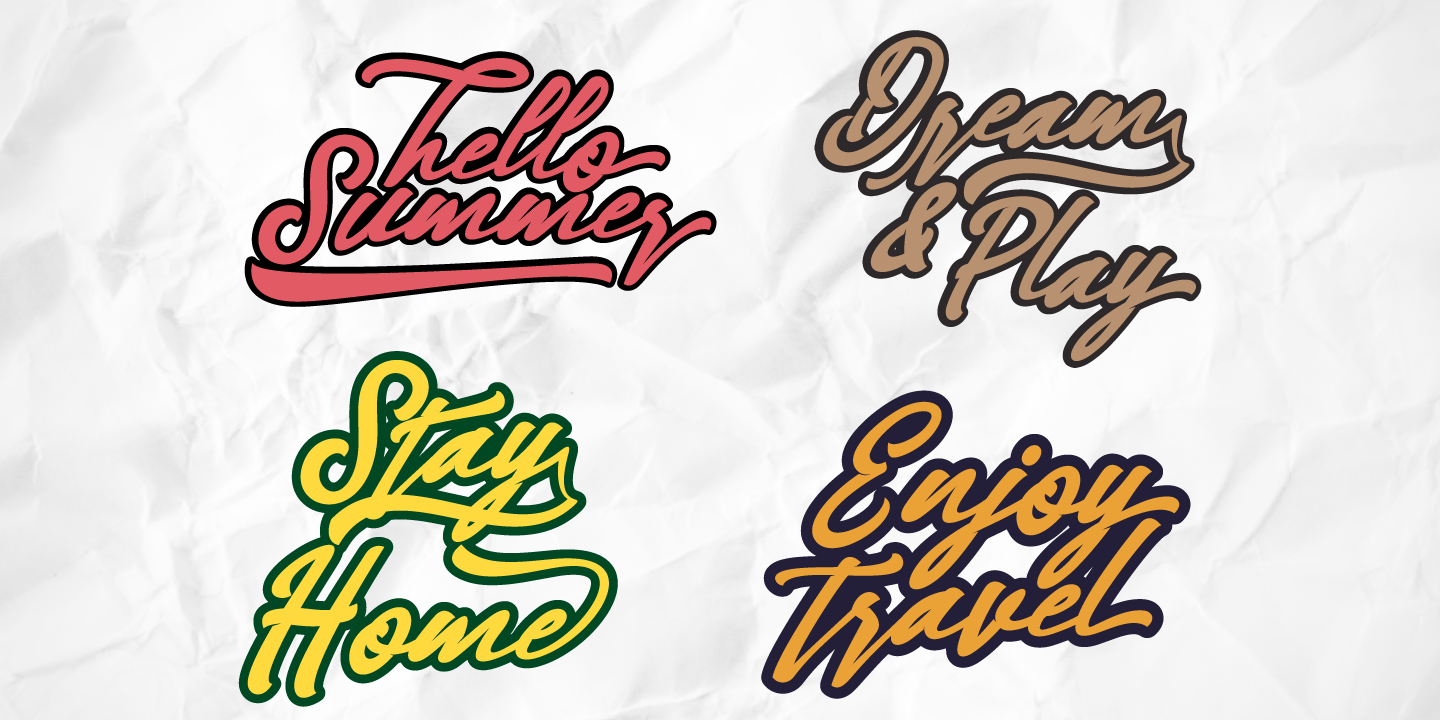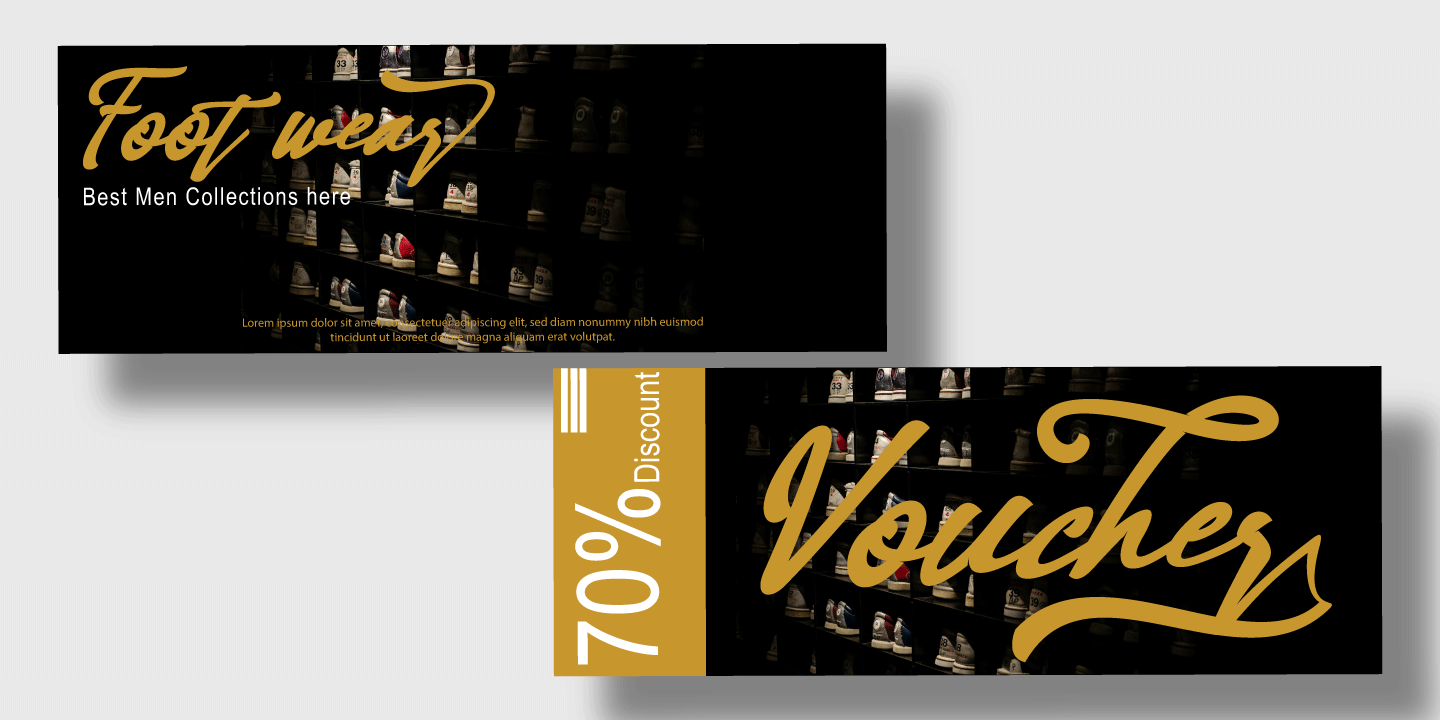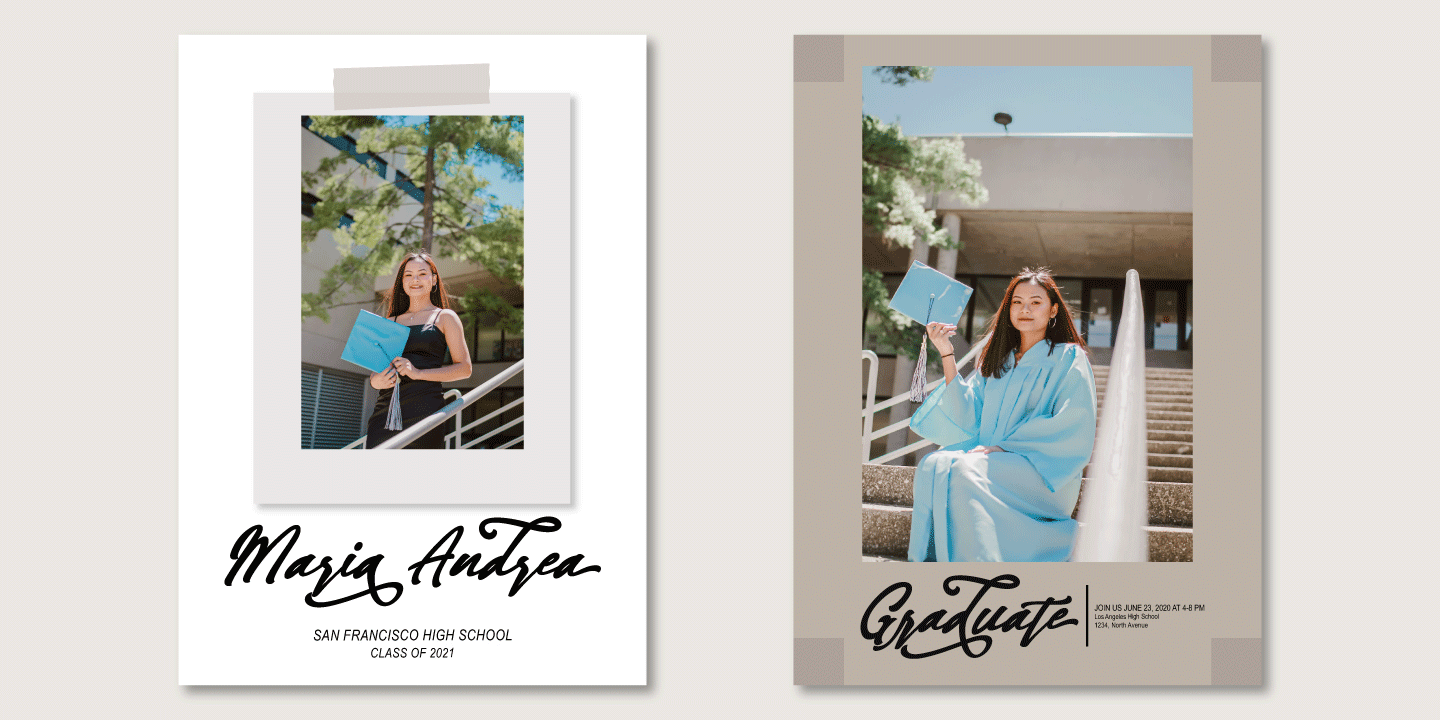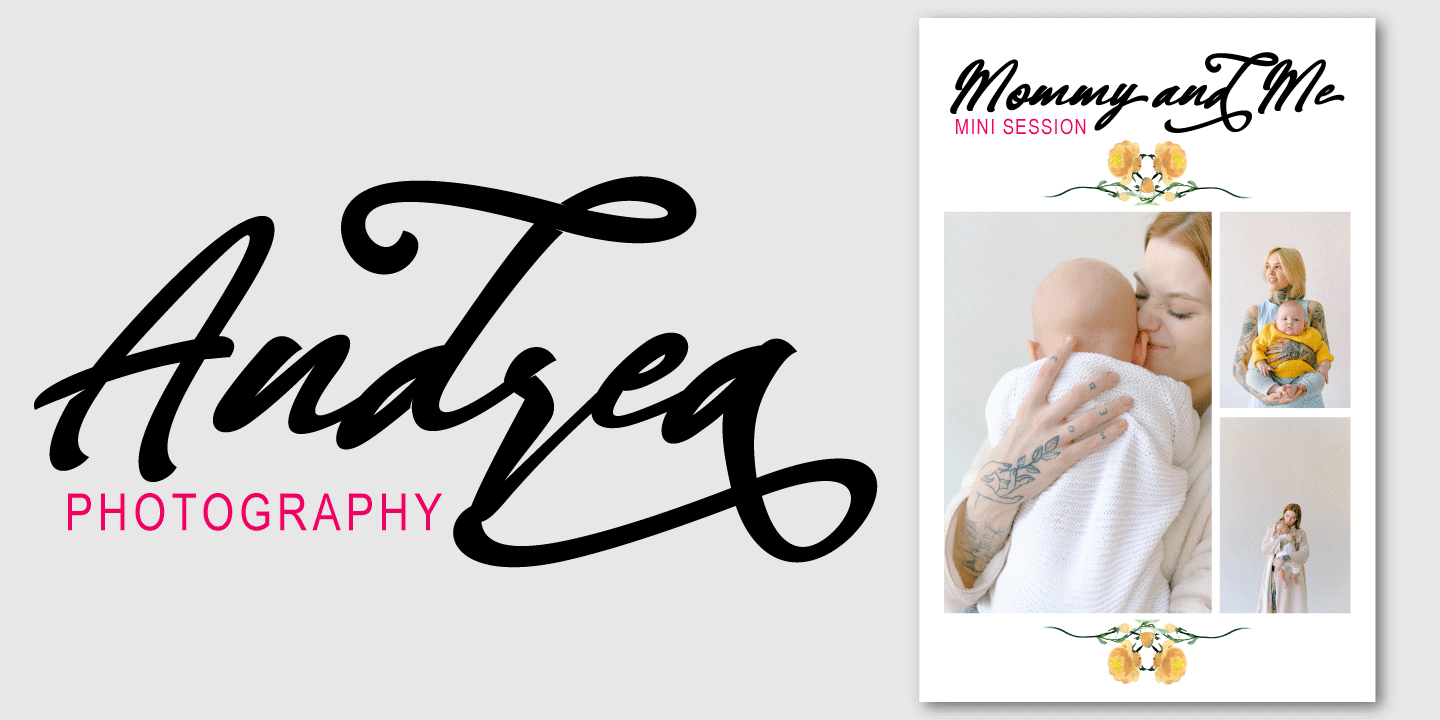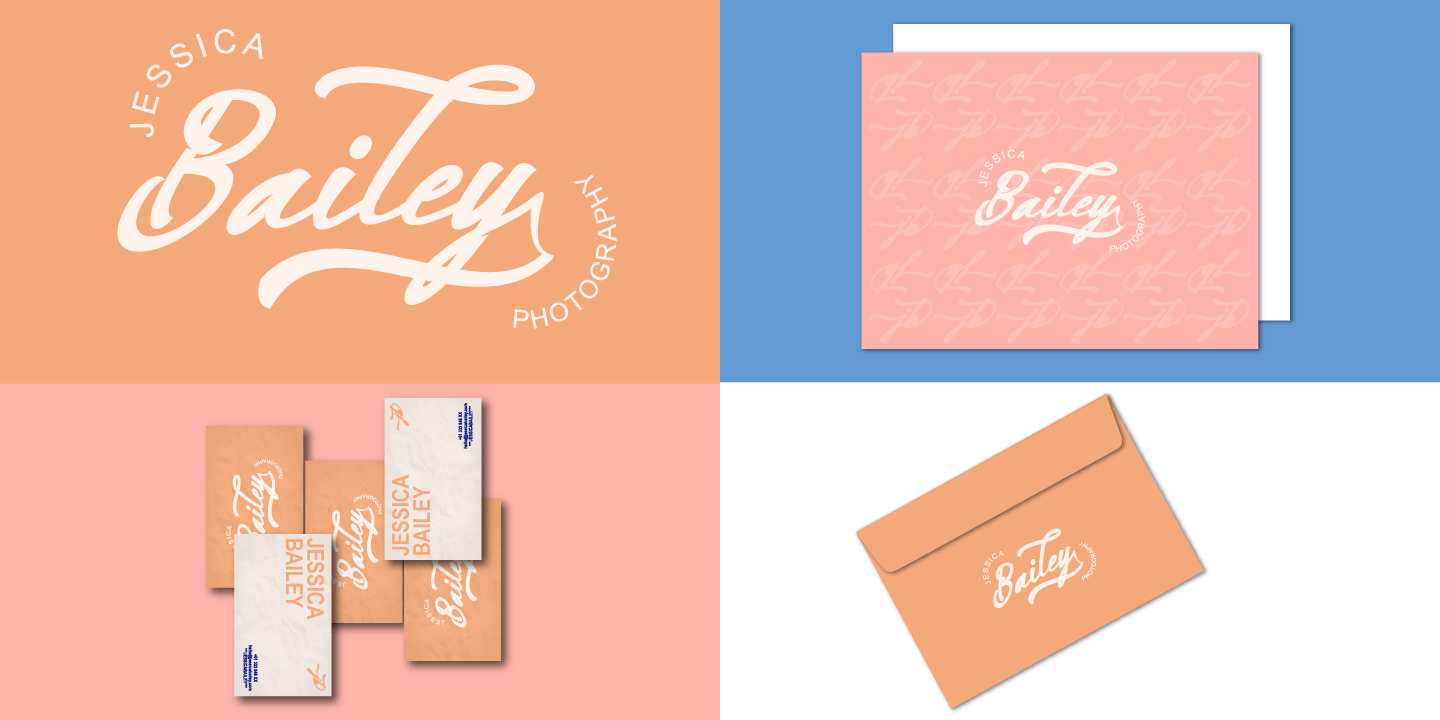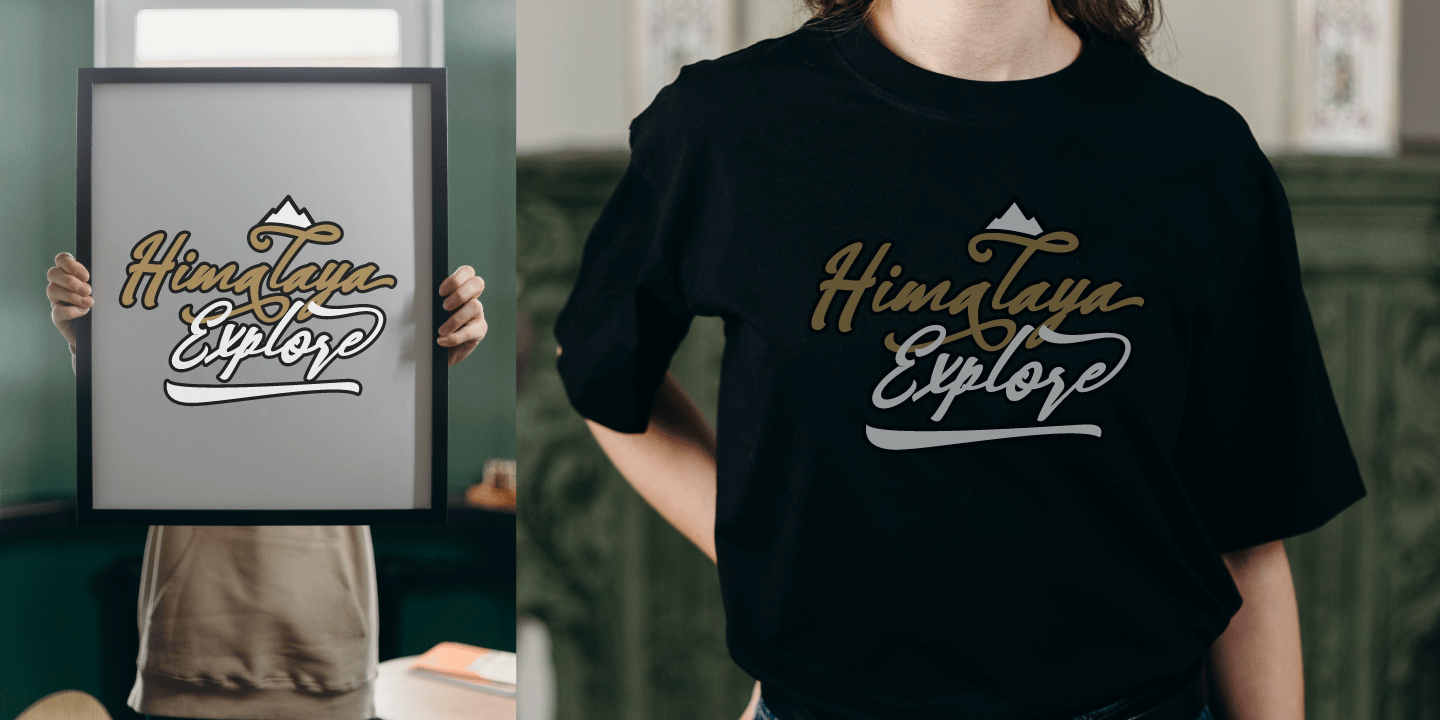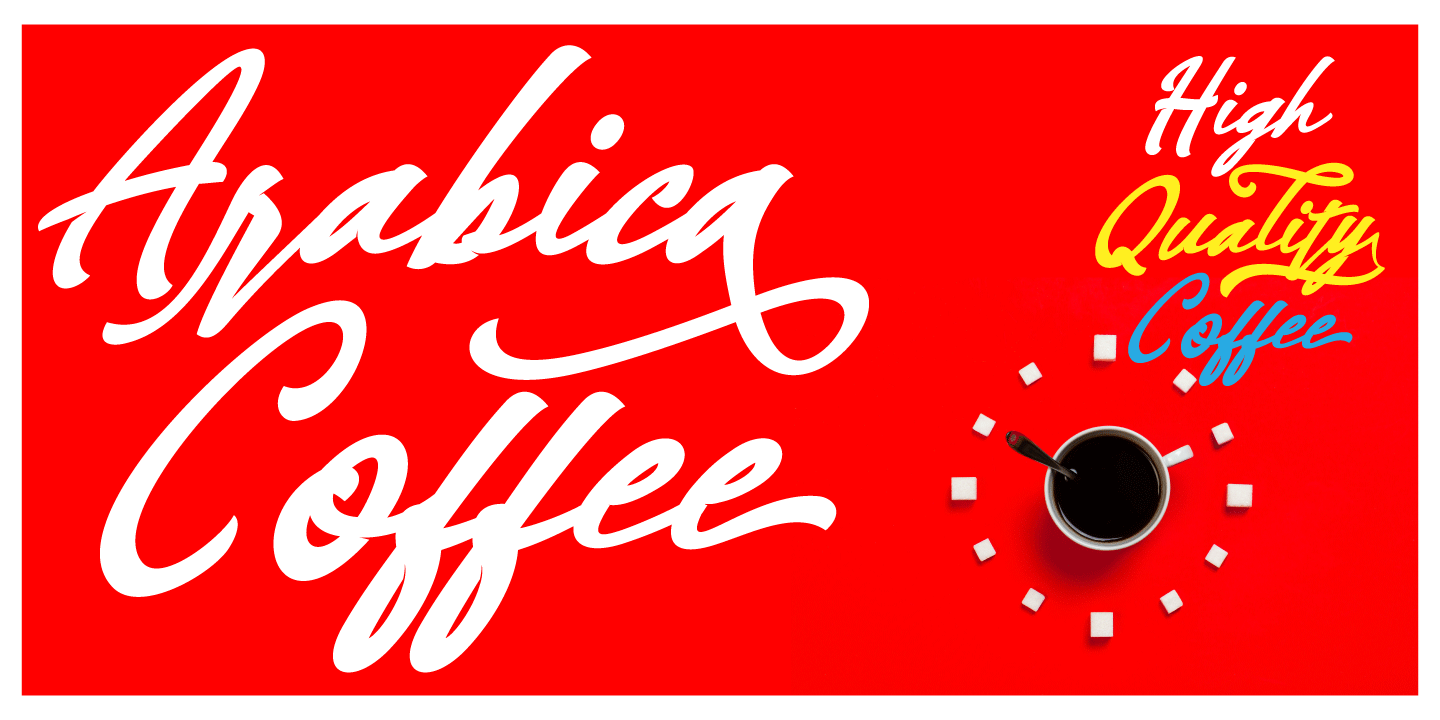
Handover is inspired by a retro and hand drawn style. Each curve has personality. It includes a set of swashes too. This font is ideal for logos, handwritten quotes, product packaging, header, poster, merchandise, social media, greeting cards and more. This includes multi-lingual support.